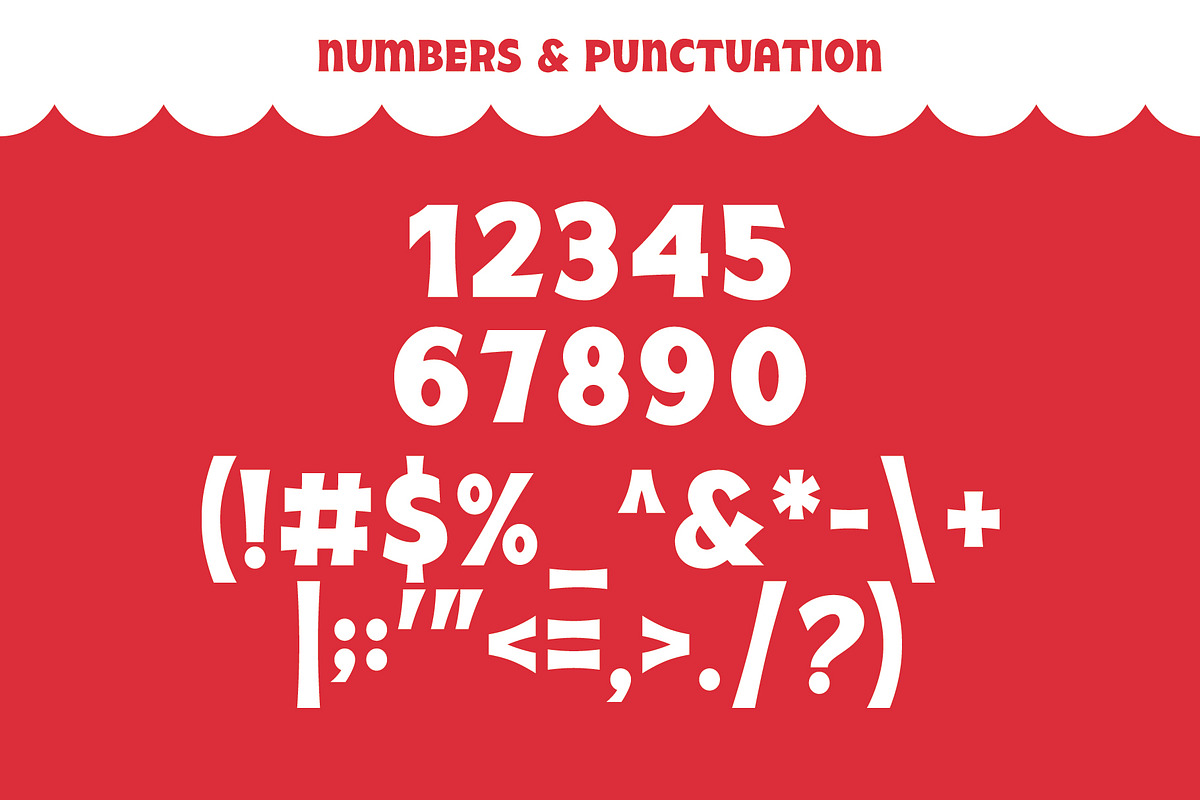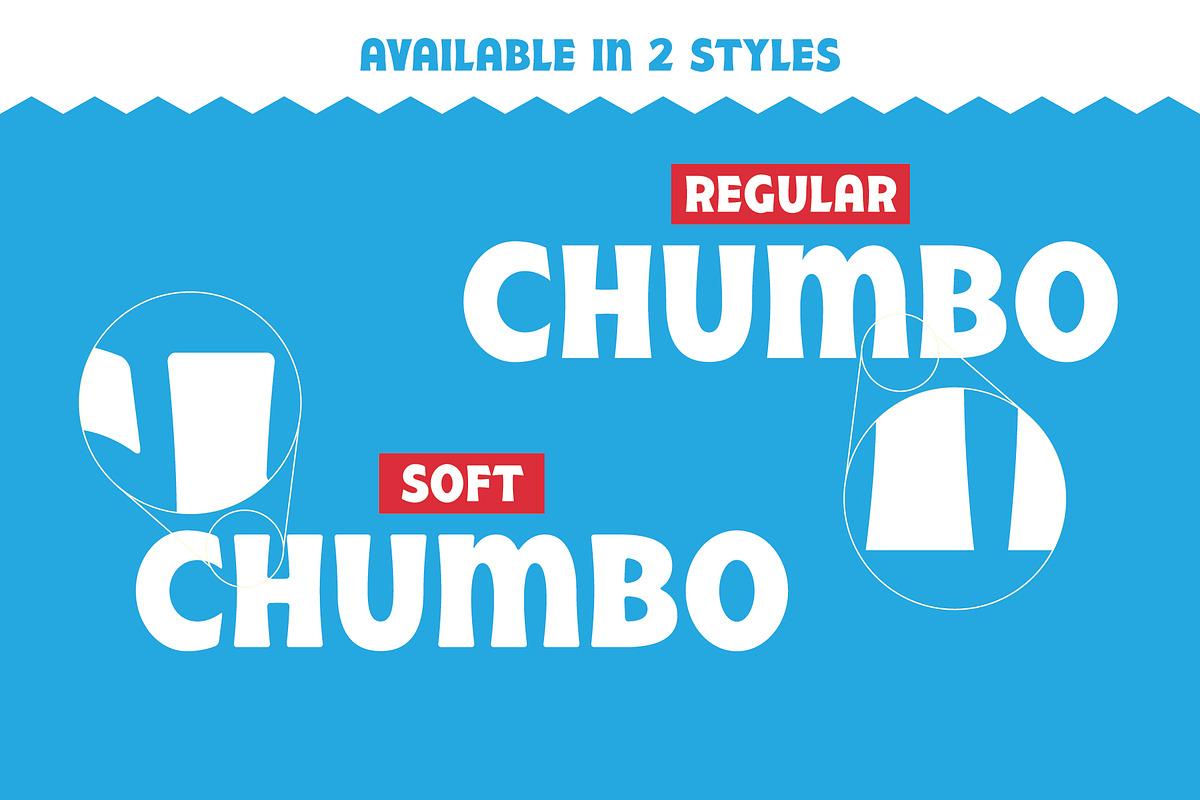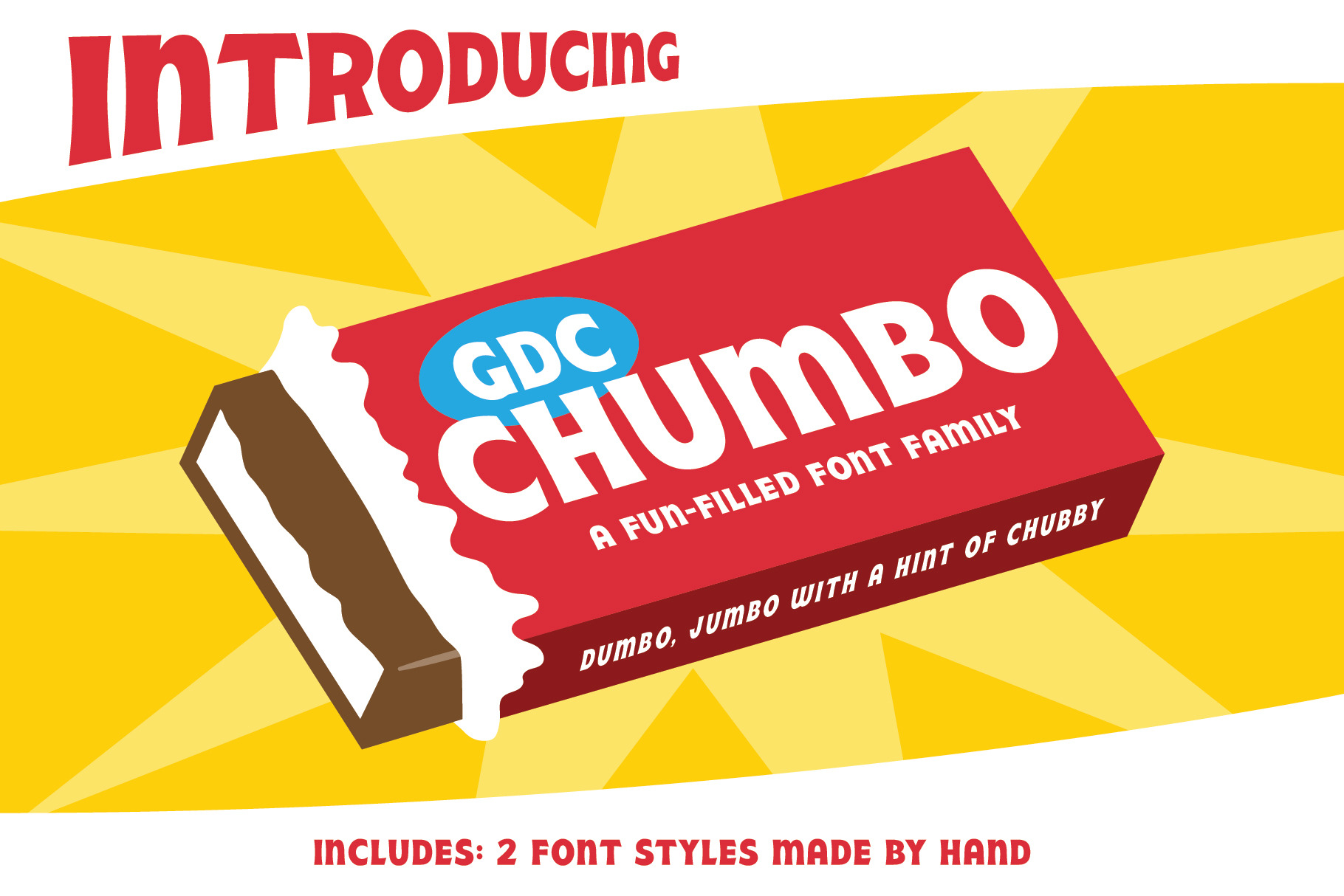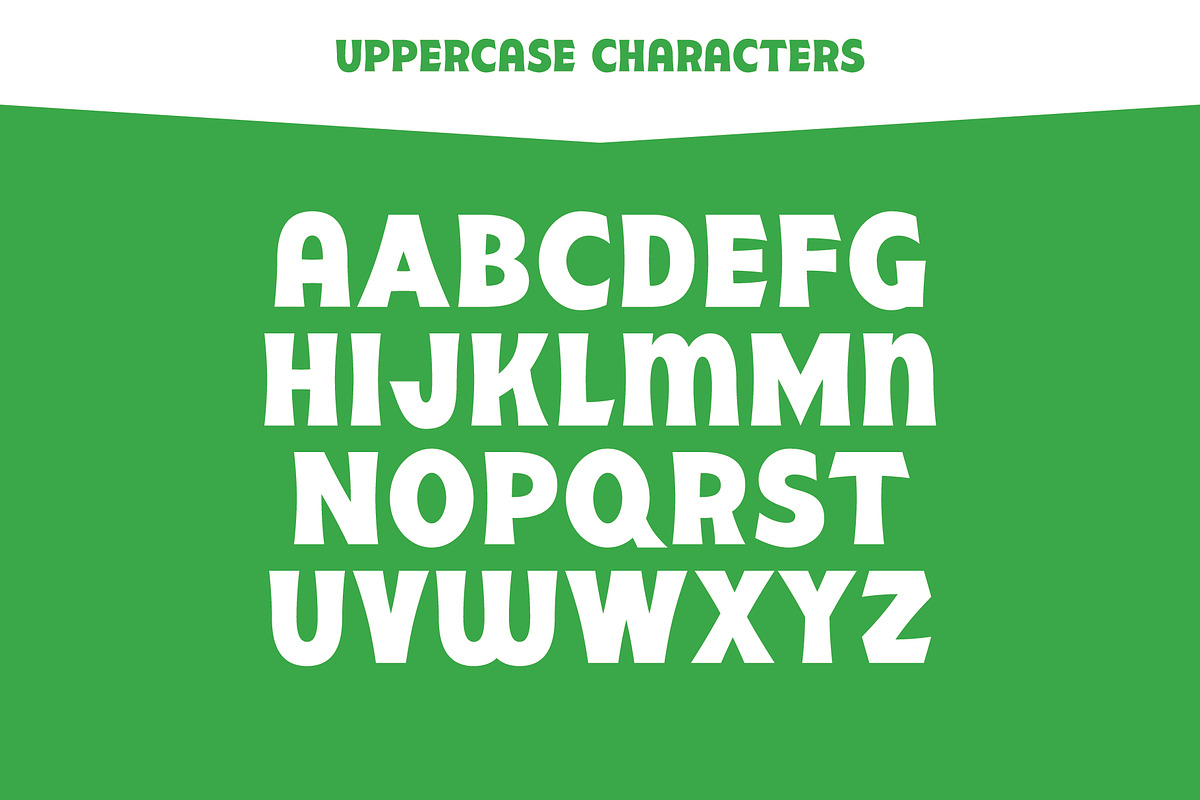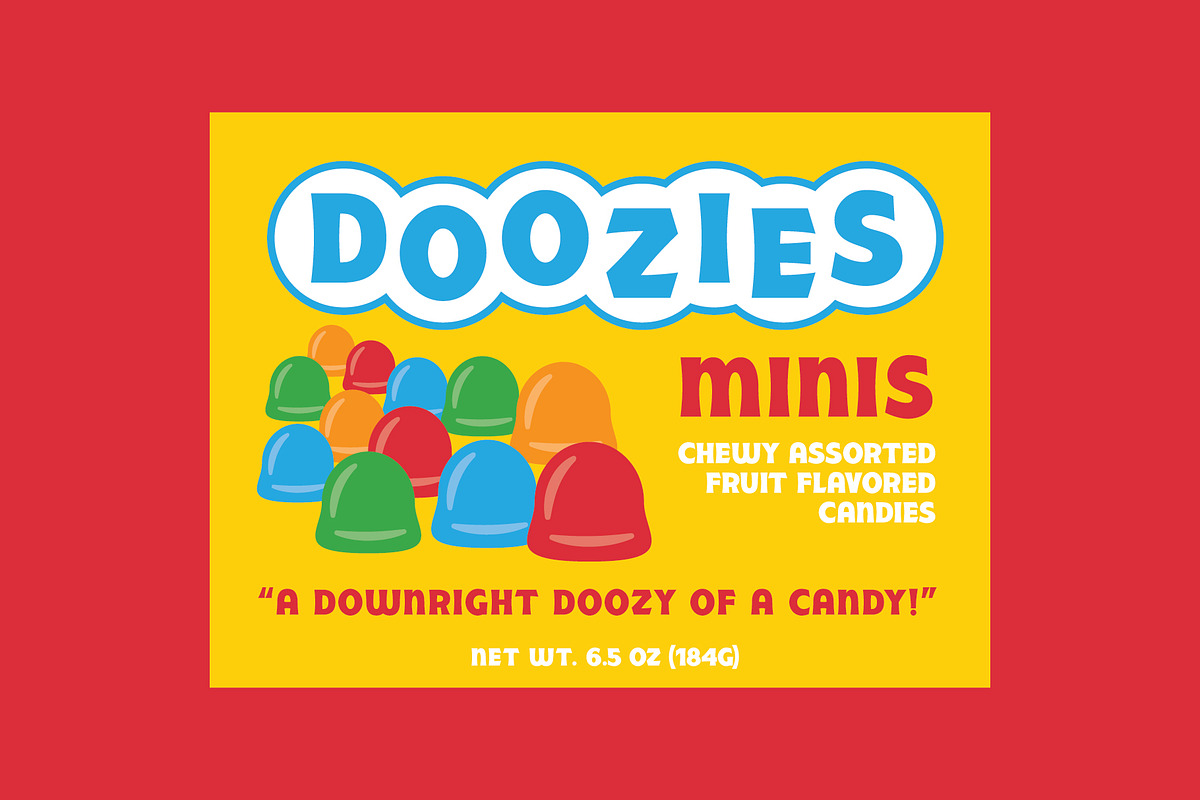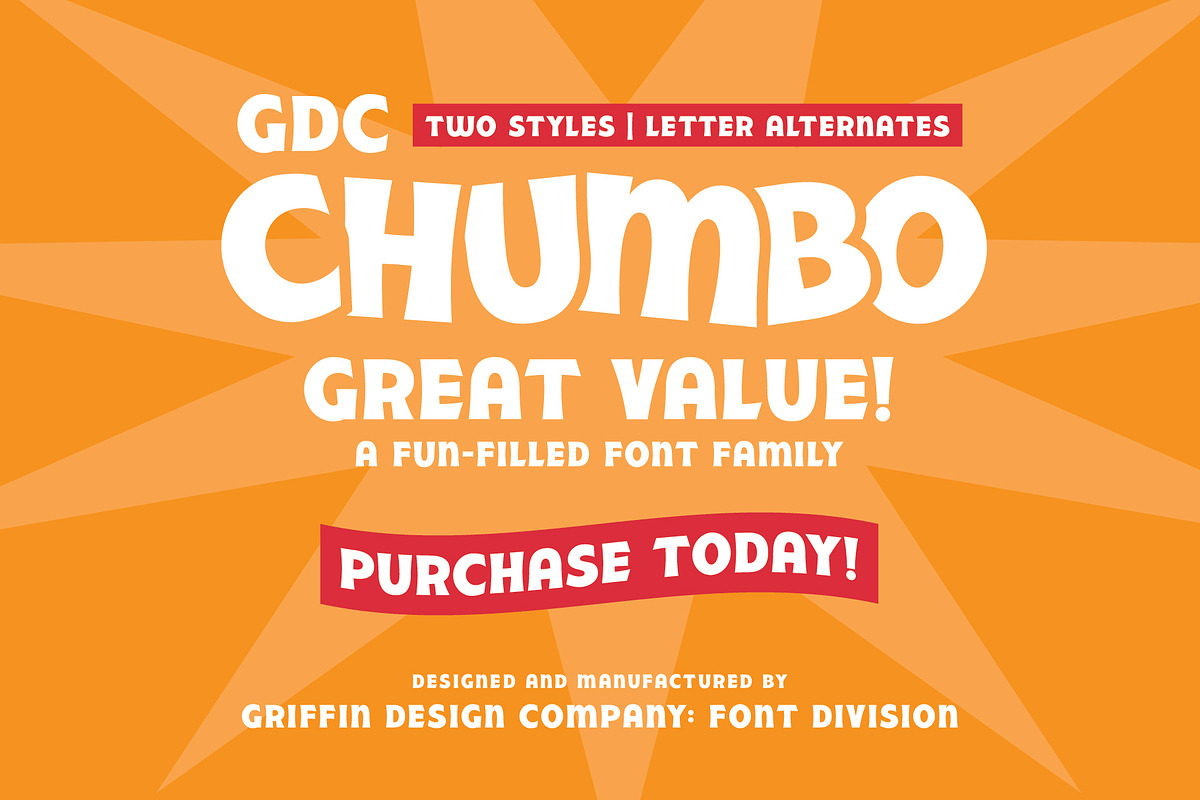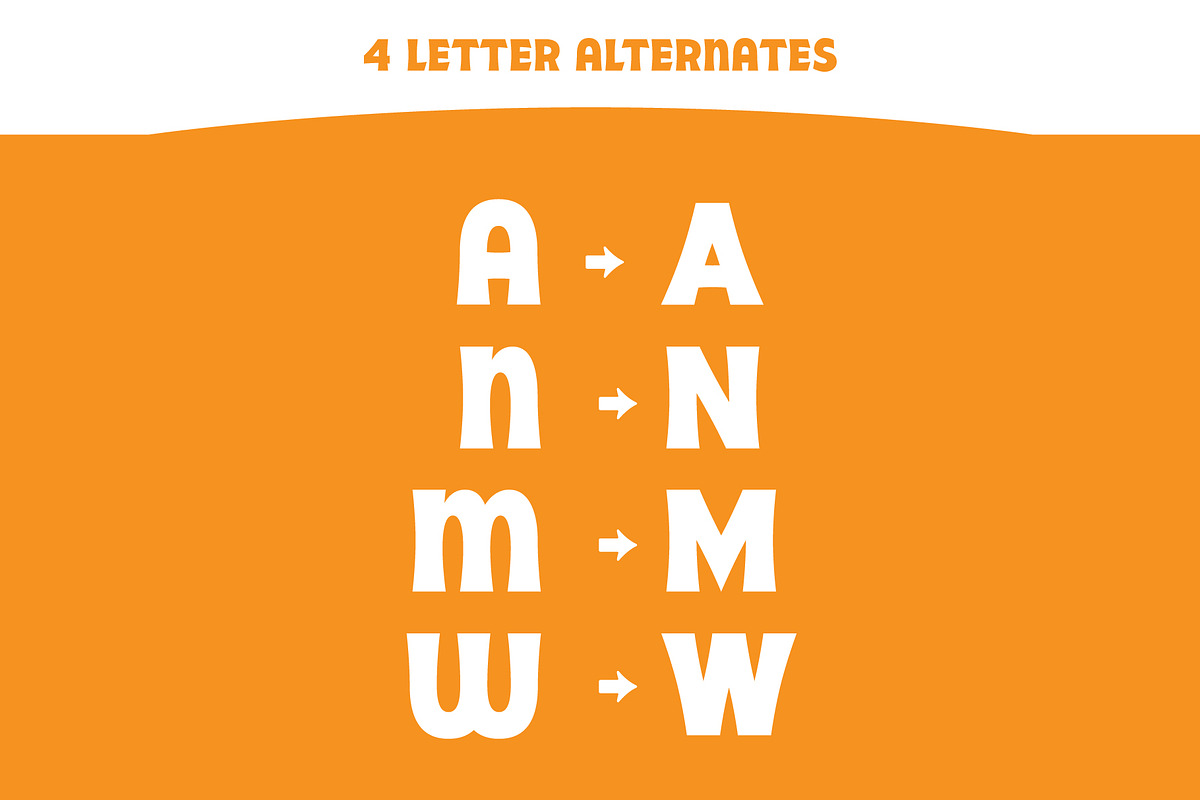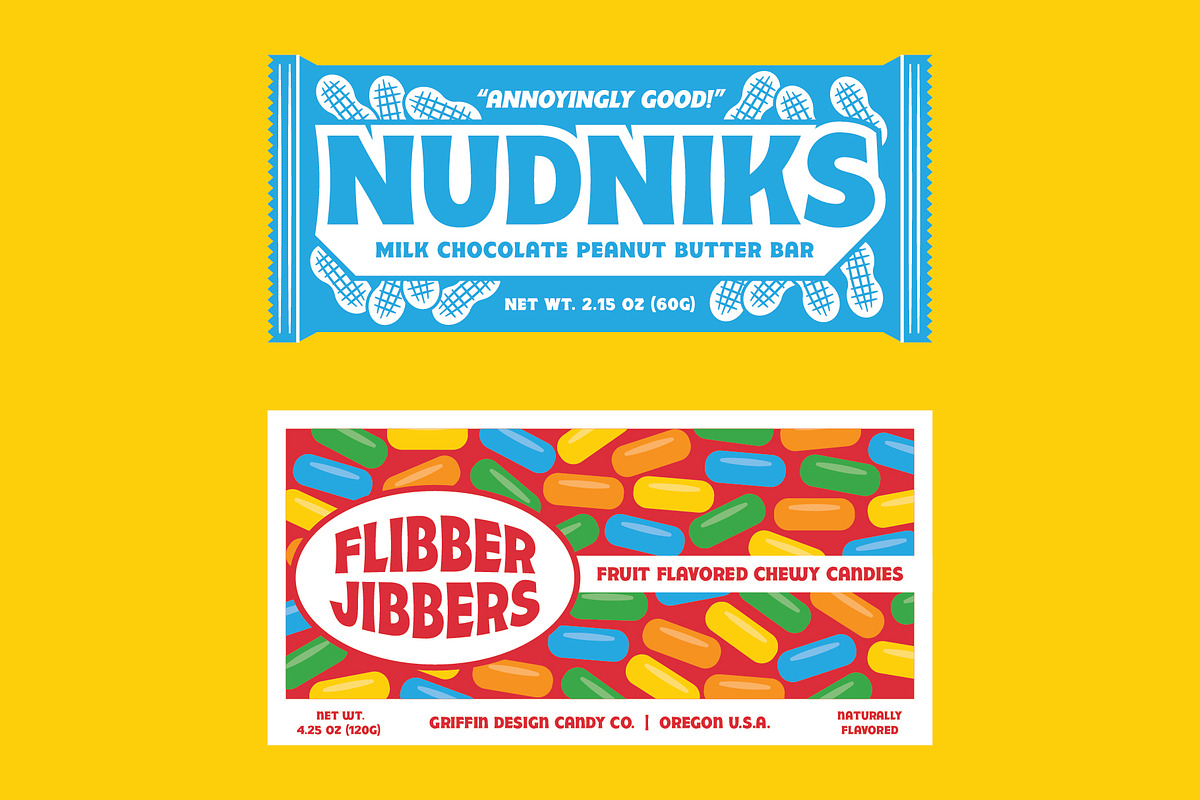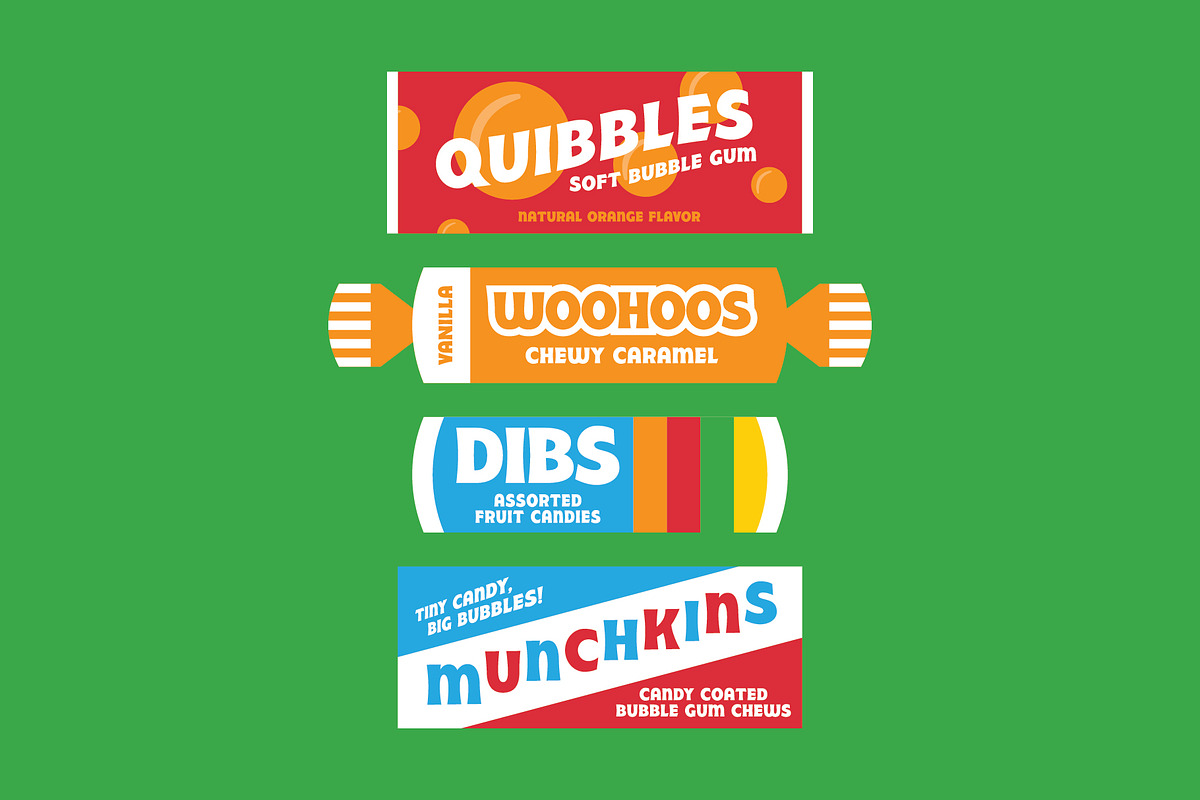
GDC CHUMBO | Retro Font
GDC Chumbo is a custom typeface inspired by vintage candy packaging. This retro font works hard but doesn't take itself too seriously. The best of both worlds! This font includes uppercase letters, numbers, and punctuation in 2 different styles.